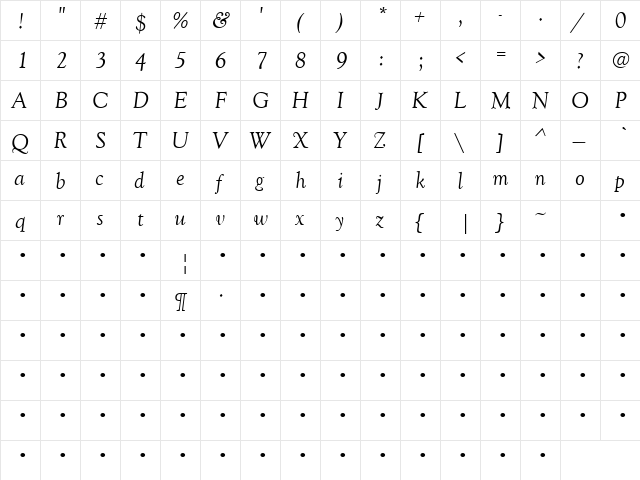
QTOldGoudy Italic
Design Context for QTOldGoudy Typeface
QTOldGoudy takes a measured approach to typography — its balanced proportions and neutral character make it a reliable workhorse for both digital and print work. Its italic angle brings a sense of urgency and motion to the letterforms.
Pro Tip: Try QTOldGoudy for annotation and caption copy alongside an upright companion — the contrast in angle creates a dynamic but ordered typographic system.